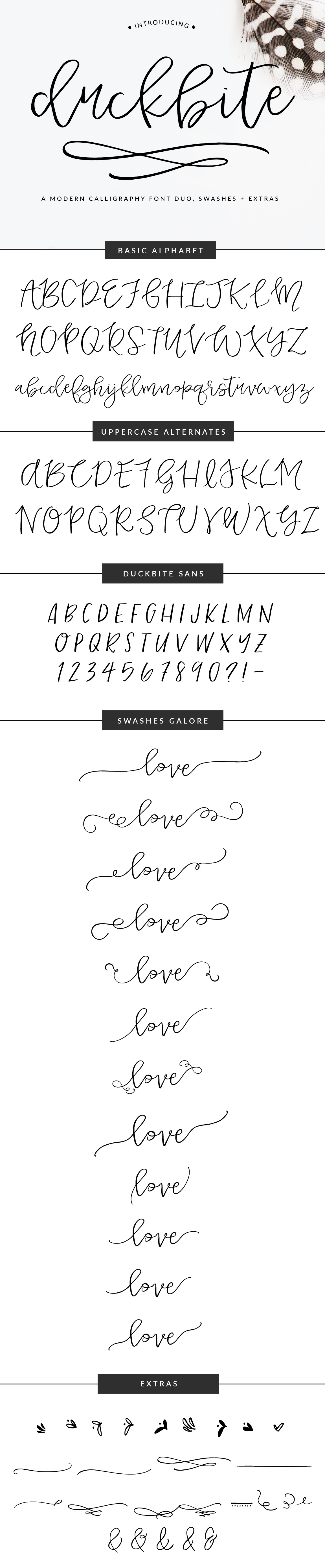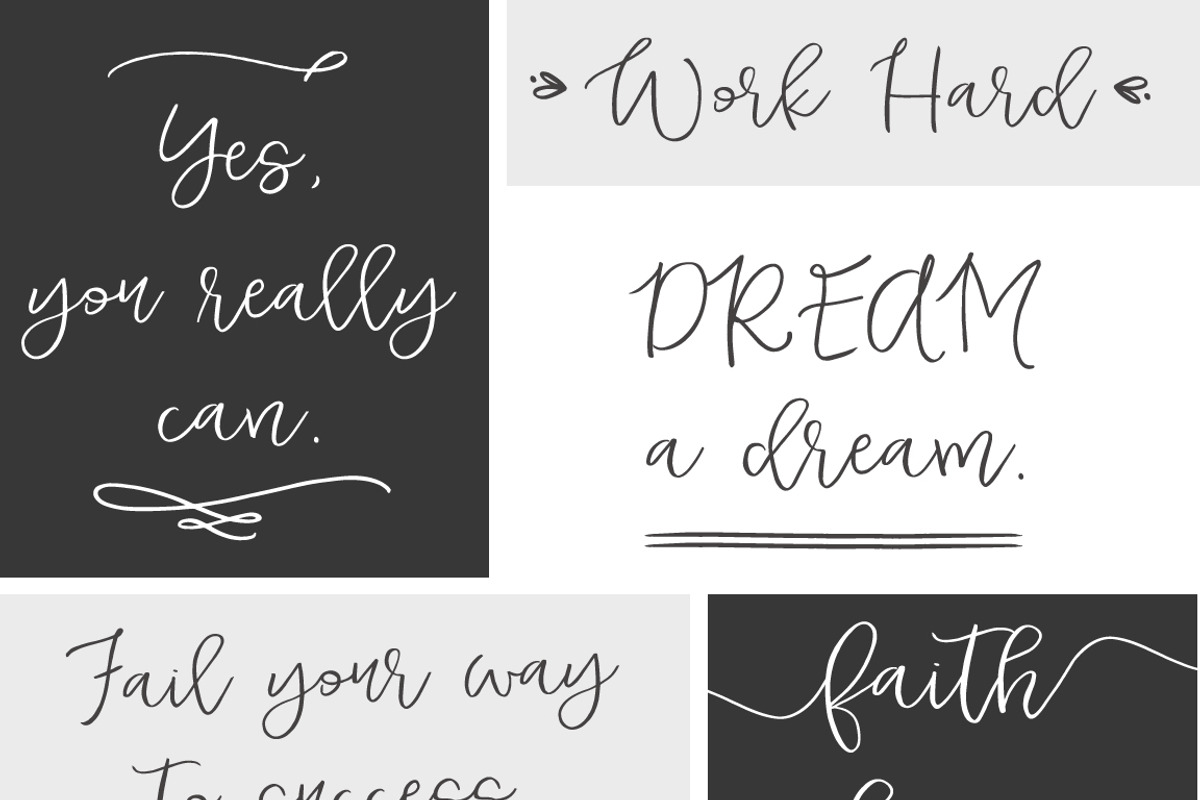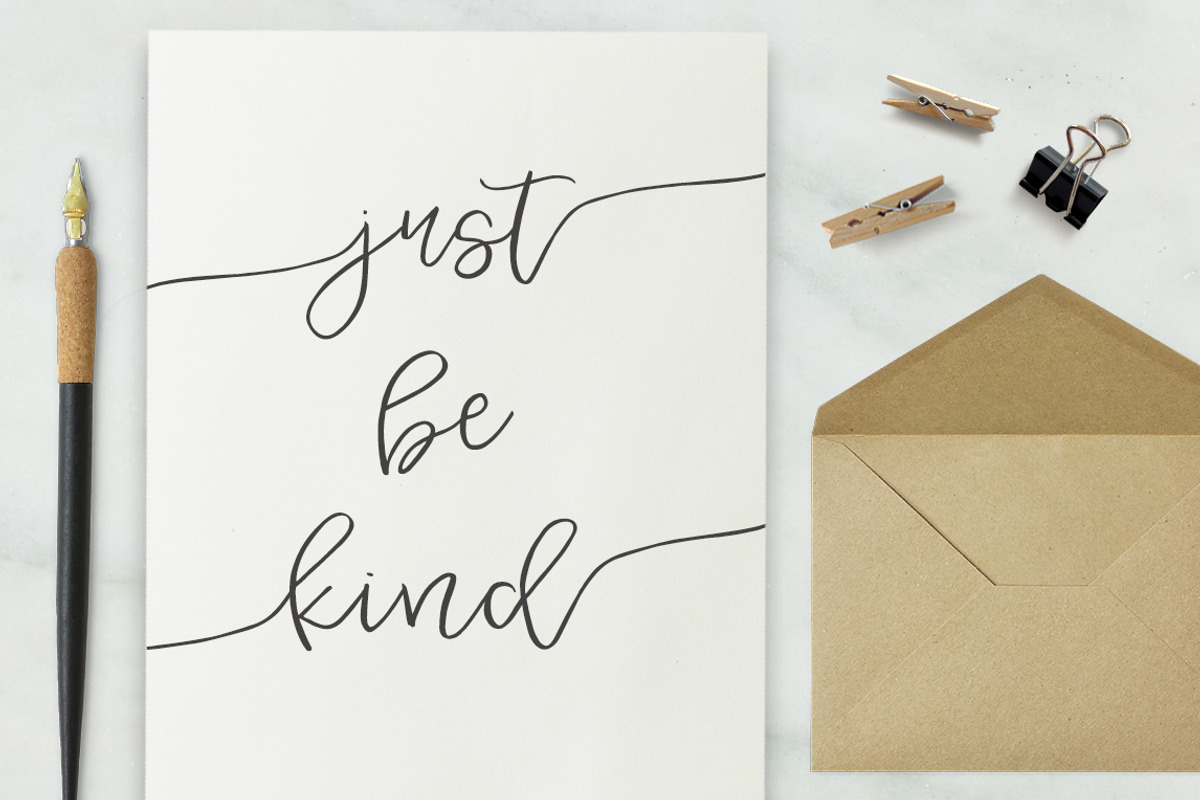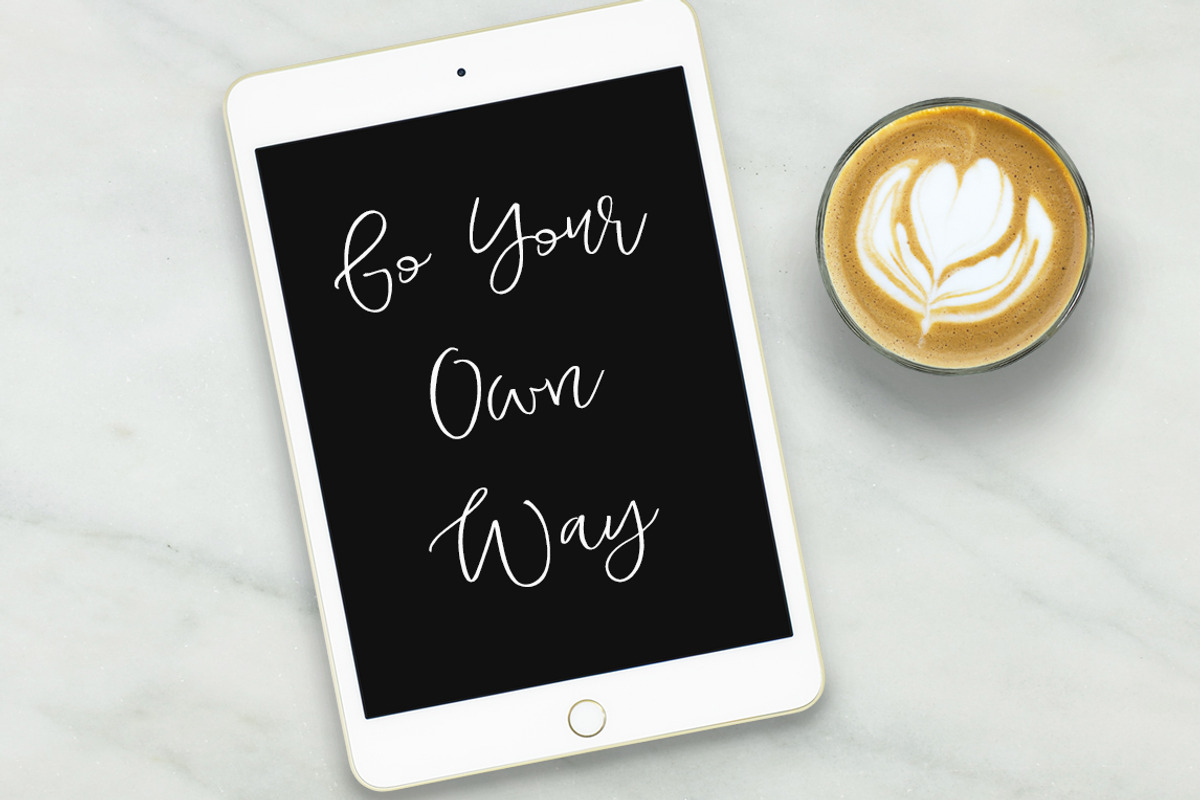
Duckbite Font Family
Meet Duckbite-- a modern calligraphy font set with swashes, extras, and alternate characters in abundance. This font has been lovingly crafted to give you a handy, creative font family + extra goodies that all play nicely together.
Use your glyphs panel in Illustrator or Photoshop to easily add any set of 17 different swashes to the beginnings and ends of your lowercase letters. Alternatively, you can use the Duckbite Swashes font to add the swashes to your lowercase letters. Simply type lowercase a-z for beginning swashes and uppercase A-Z for end swashes. Glyphs panel is preferred. Some swashes may not align 100% correctly using the Duckbite Swashes font.
- Duckbite
- Duckbite Alternates - A Separate Set of Uppercase Letters that Pairs With Duckbite
- Duckbite Swashes - Swashes to Add to the Beginning and End of Lowercase Letters
- Duckbite Extras - Swashes + Doodles
- Duckbite Sans - A Sans Serif Font to Pair Perfectly With Duckbite
- Duckbite Sans Skinny - A Super Skinny Sans Serif Font to Pair With Duckbite
The Duckbite font family offers multilingual support.
Duckbite features smart, open type features including ordinals (1st, 2nd, 3rd, etc) , contextual alternates, and stylistic alternates. Use contextual alternates to access special characters for double letters like tt, th, pp, etc. and use Stylistic Alternates to access the separate set of uppercase letters.